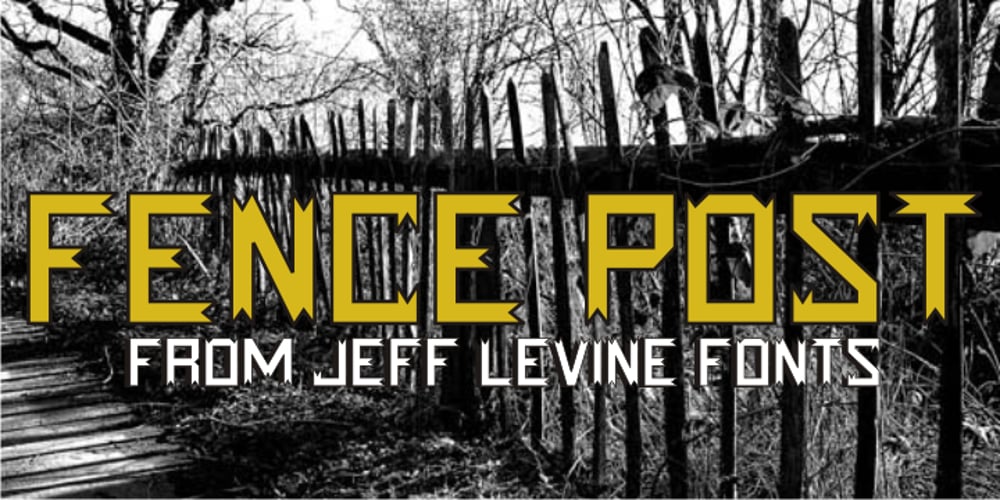
Fence Post JNL Font Family was designed by Jeff Levine and published by Jeff Levine. Fence Post JNL contains 1 styles and family package options. The inspiration for Fence Post JNL comes out of an early 1900s manual for sign writing. A number of changes were made to make the design more aesthetically pleasing, but it retains its novelty effect of evoking the look of wooden fence posts or Western-themed typography.